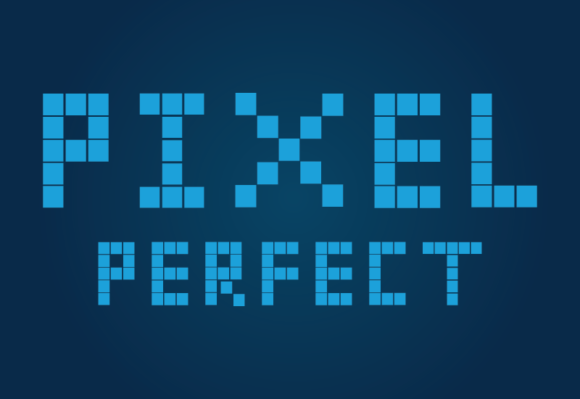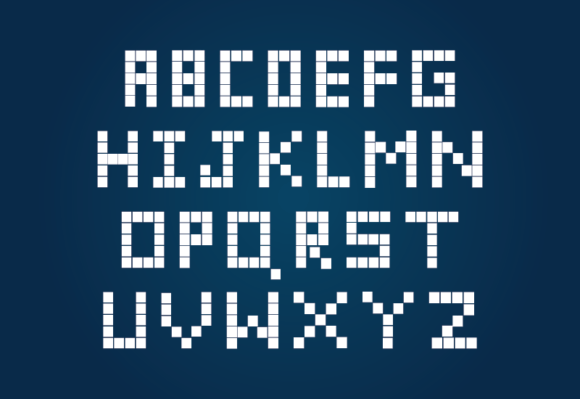
Introduction to Pixel Perfect Font
Have you ever stared at a blank canvas, waiting for the perfect idea to strike? That’s where inspiration hits, and creativity takes over. For designers, finding the right font can make all the difference in bringing a concept to life. Recently, I stumbled upon the Pixel Perfect Font, and it’s been a game-changer for my projects.
This stylish, retro-style font is perfect for adding a touch of nostalgia to your creative project. With its cool, flip, and counter design, it’s an ideal choice for anyone looking to add a high-quality design resource to their toolkit. Whether you’re working on a design project or creating a digital art piece, the Pixel Perfect Font is sure to elevate your work to the next level.
Key Features of Pixel Perfect Font
- High quality, pixel-perfect glyphs designed for creative projects
- Transparent background option for seamless integration into designs
- Perfect for use at high resolutions, including 4K and Retina displays
- Supports a wide range of languages and characters, making it a versatile design font
Honest Review: Pixel Perfect Font
I recently had the chance to play around with the Pixel Perfect Font, and I must say it’s a great addition to any designer’s toolkit. ✨ This font is perfect for creative projects that require a unique, retro aesthetic.
The Pixel Perfect Font is incredibly versatile and can be used for a wide range of applications, from graphics and logos to websites and digital art. The high quality of the font is immediately apparent, and it’s clear that the designer has put a lot of care into creating a truly unique and distinctive typeface.
- The font’s transparent background makes it easy to overlay on top of other design elements.
- The high quality of the font ensures that it will look great at any size or resolution.
- Limitations:
- Some users may find the font to be a bit too quirky or unconventional for certain projects.
- The font may not be suitable for all types of design, such as formal or professional projects.
Overall, I’m really impressed with the Pixel Perfect Font, and I think it’s a great addition to any designer’s design resource library. It’s a high quality, unique, and versatile font that’s perfect for creative projects. I’d definitely recommend giving it a try!
The Pixel Perfect Font is commonly used for creative projects that require a high-quality, transparent background, such as logos, icons, and graphics for websites, social media, and marketing materials.
Comparison: Open Sans has a more modern look compared to Pixel Perfect Font, which has a retro aesthetic. Open Sans is also more versatile and can be used for a wide range of design projects.